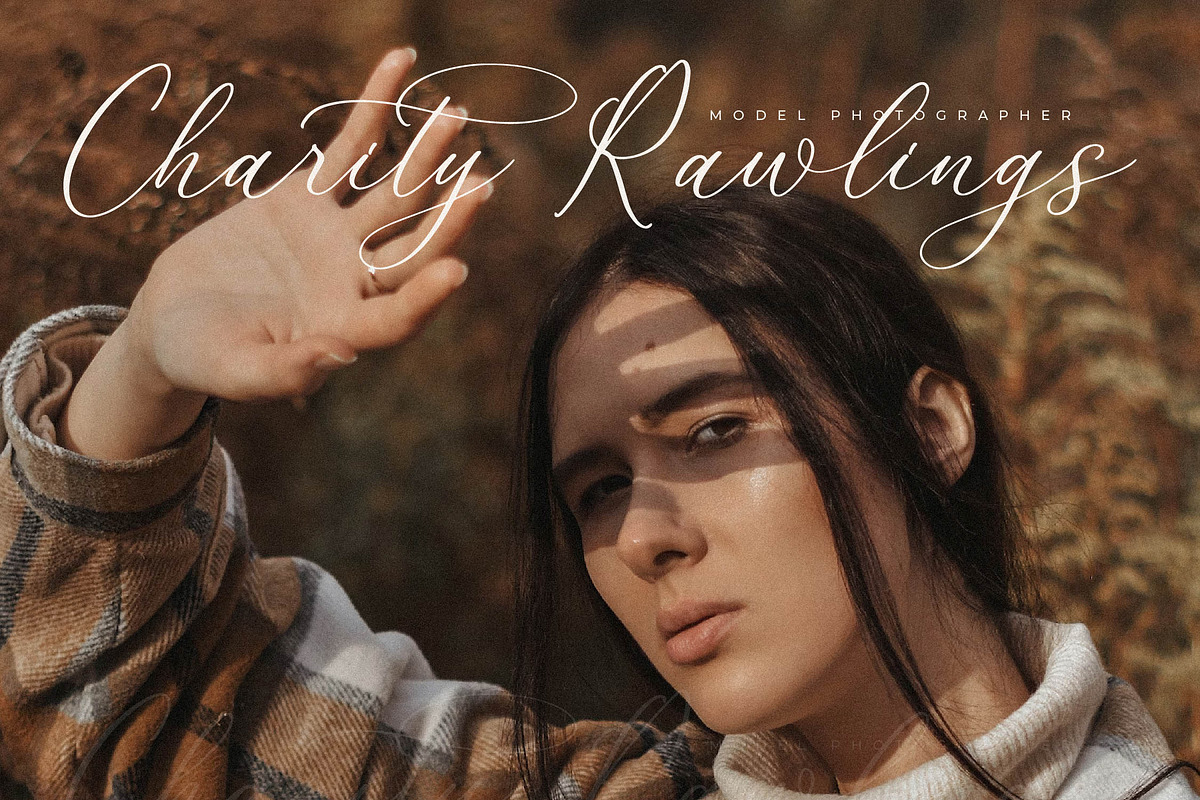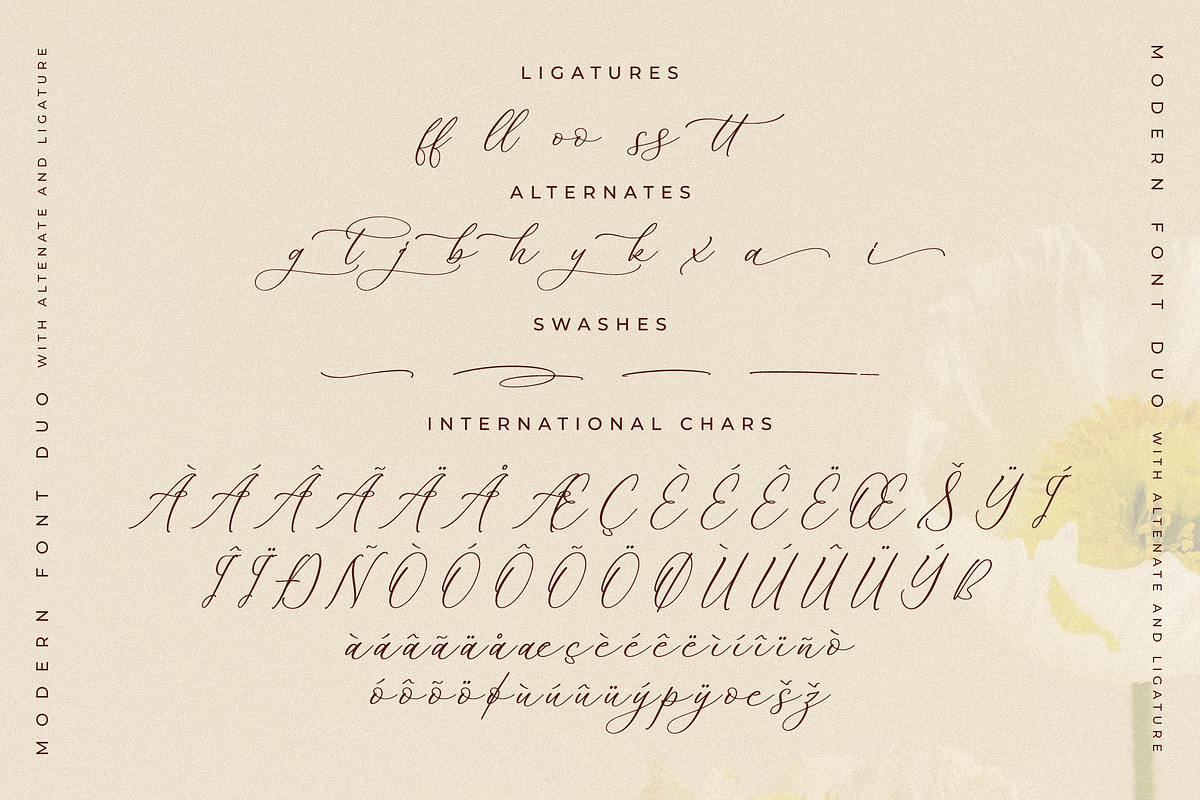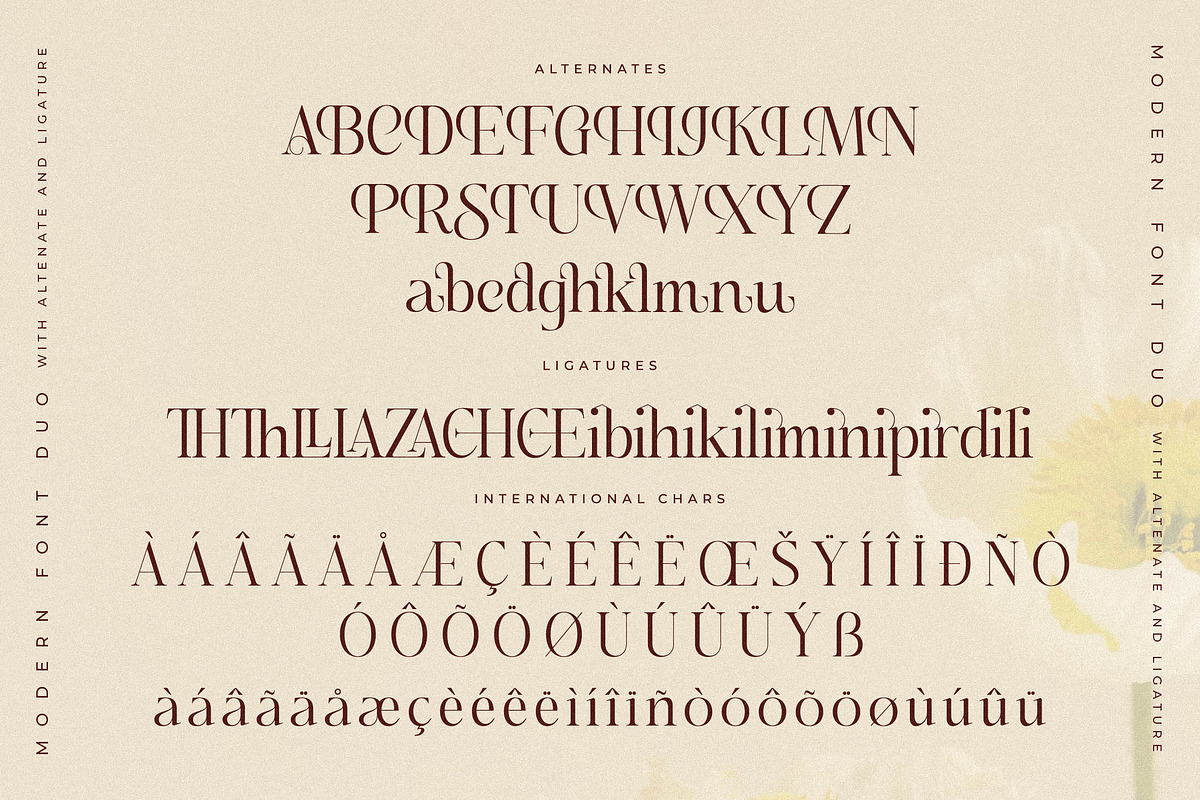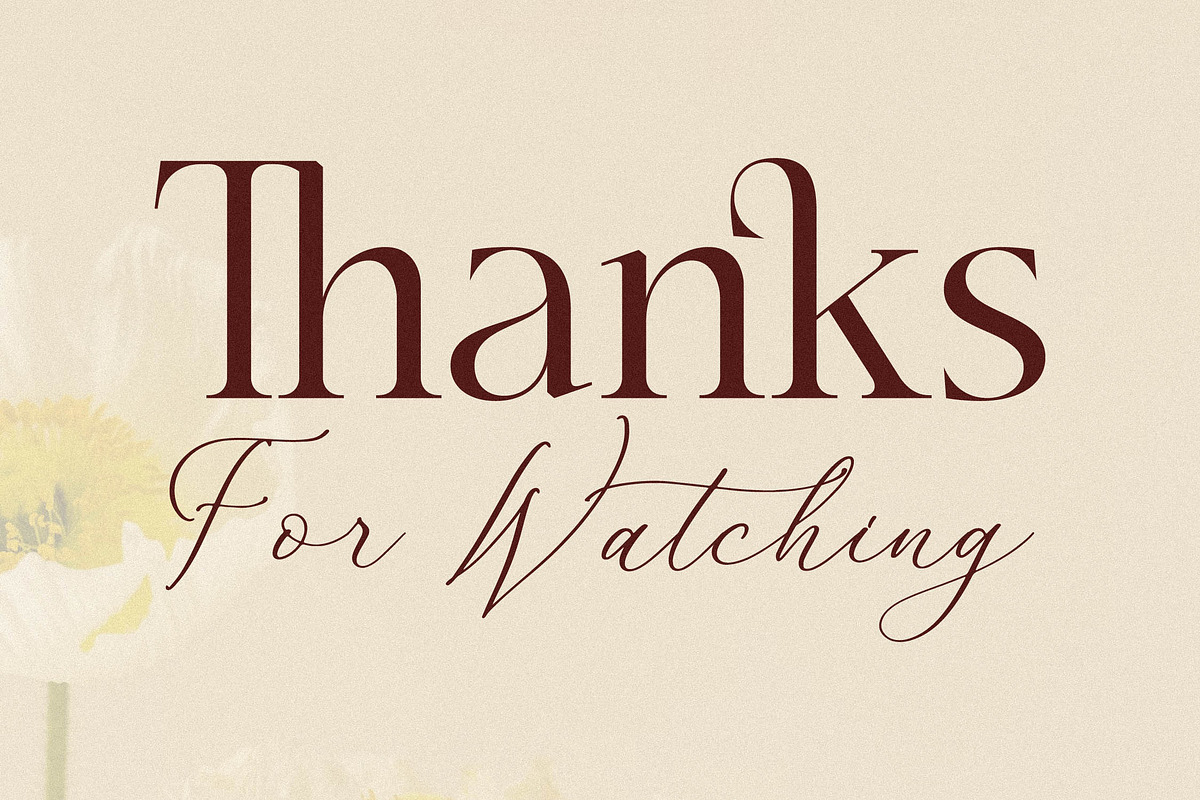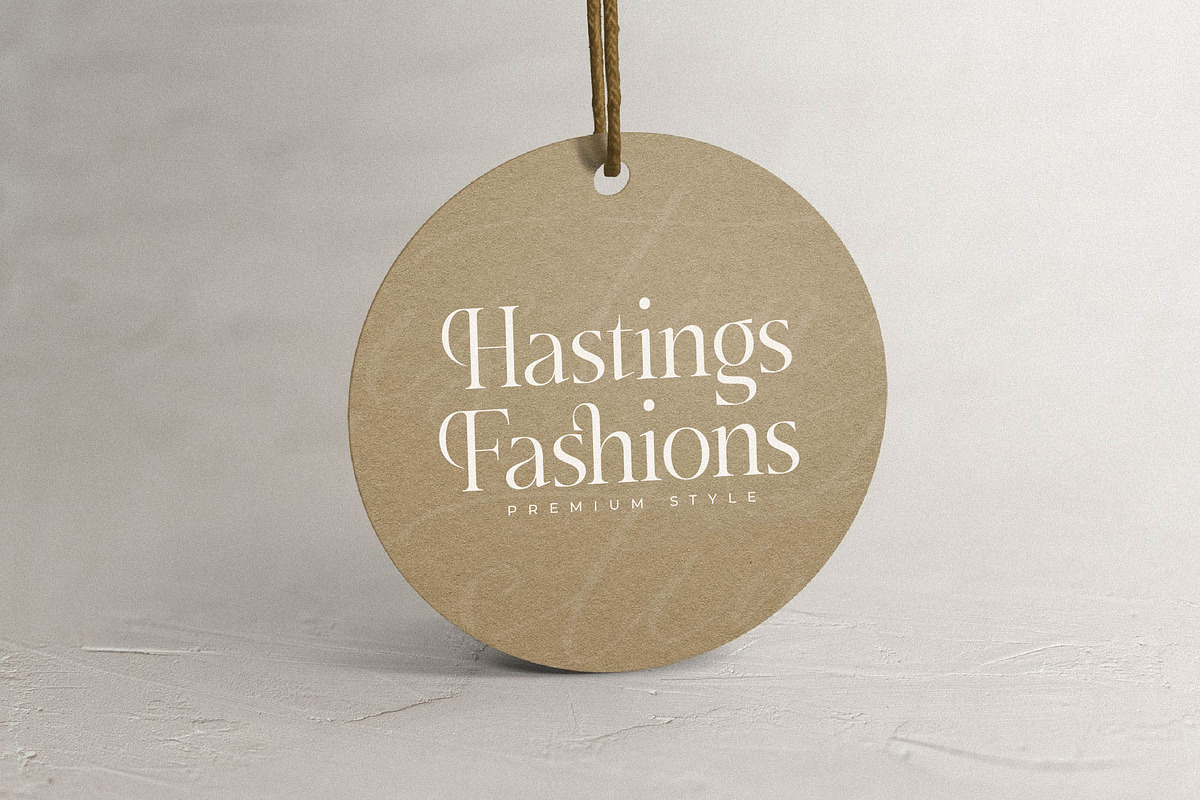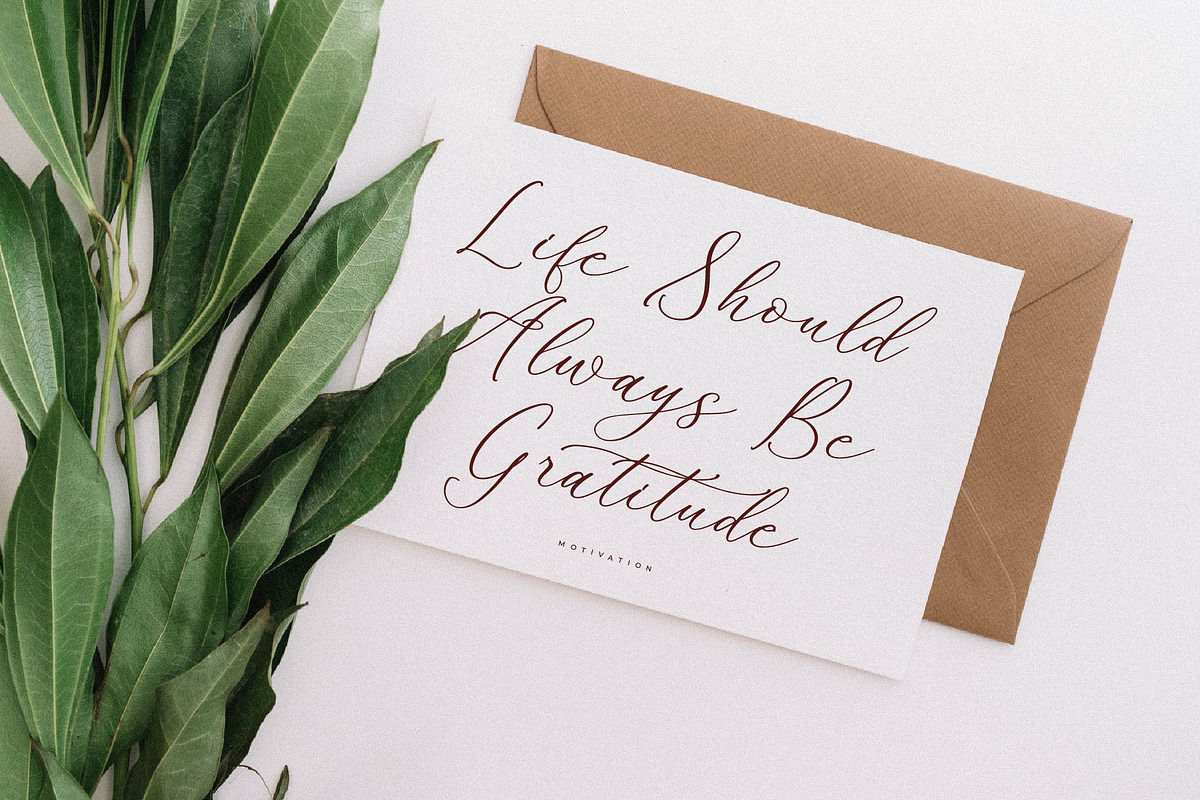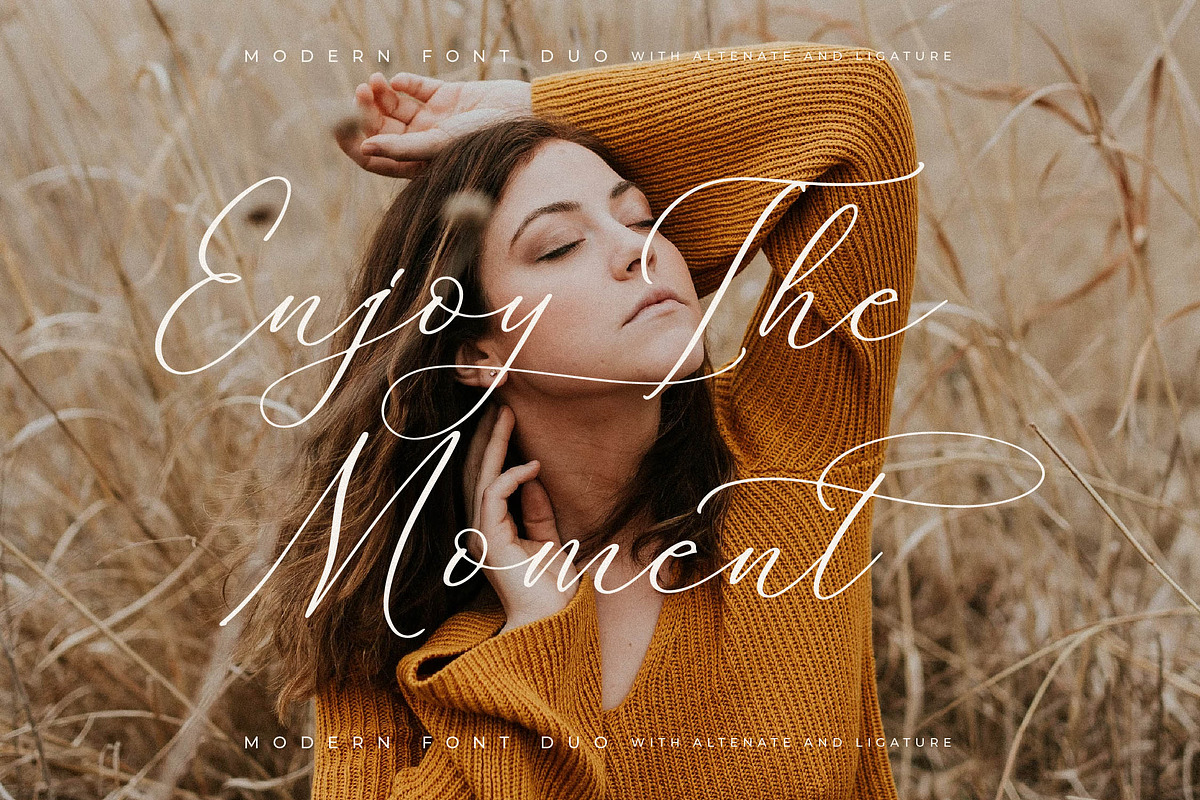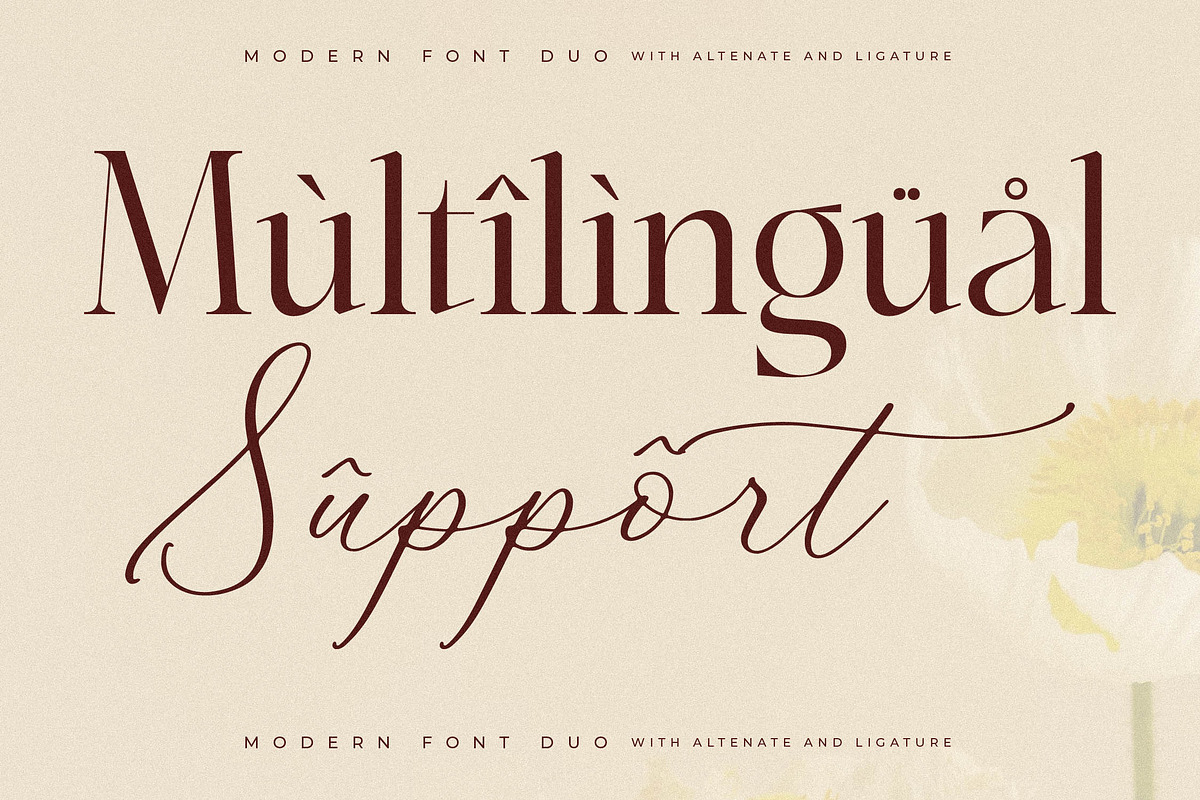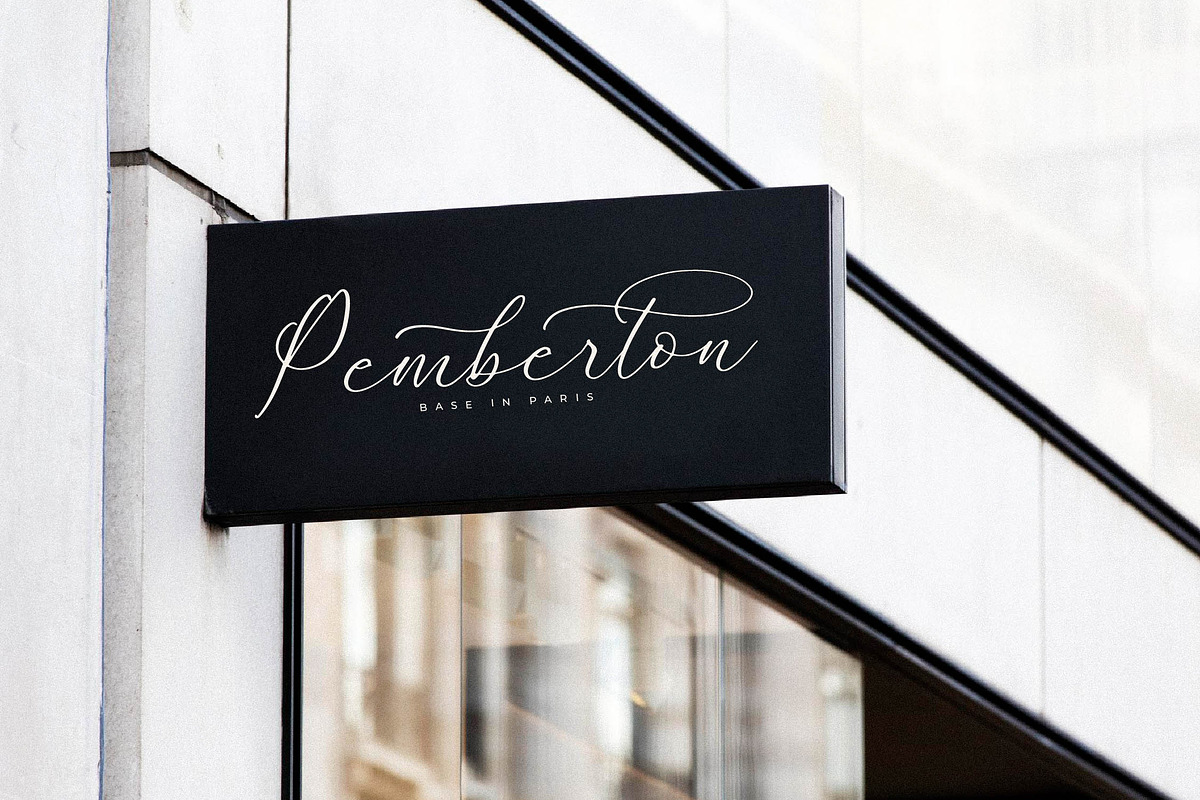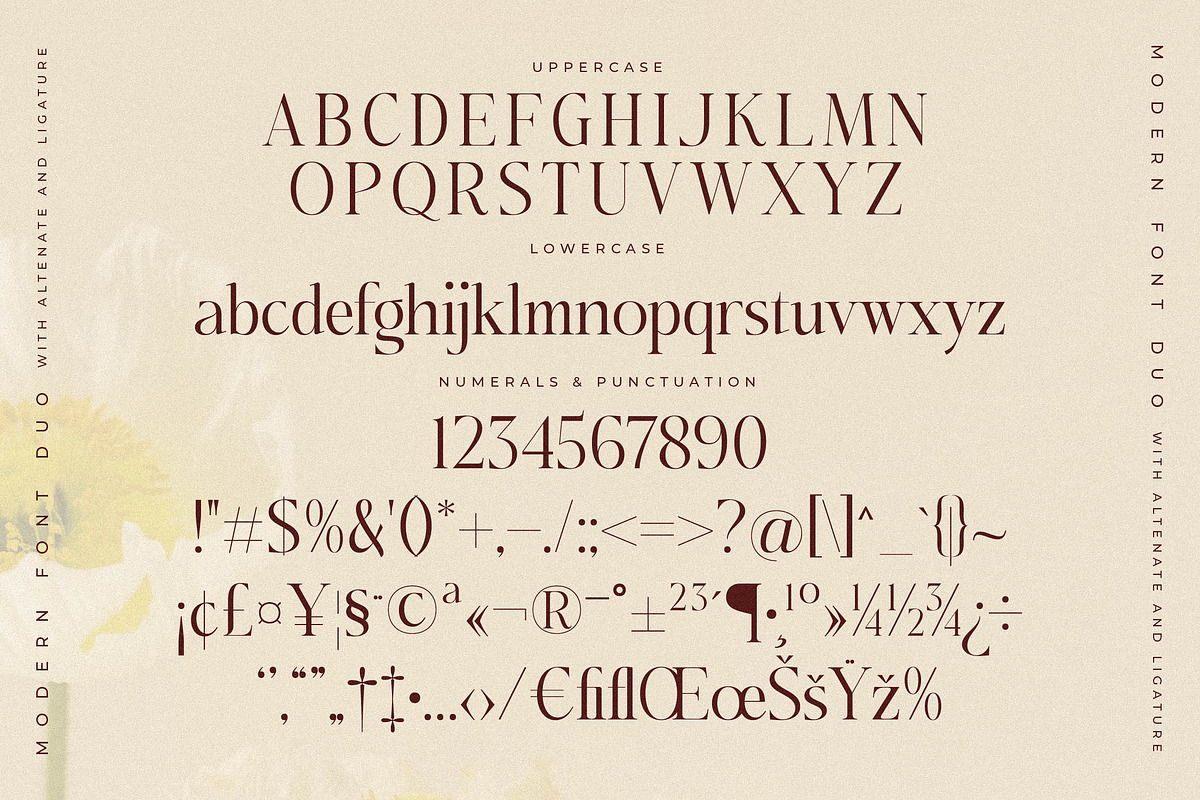
Adoretta Holland Font Duo
Proudly present Adoretta Holland Font Duo , created by Storytype, A serif and script typeface that has own unique style & modern look. This typeface is perfect for an elegant & luxury logo, book or movie title design, fashion brand, magazine, clothes, lettering, quotes, and so much more.